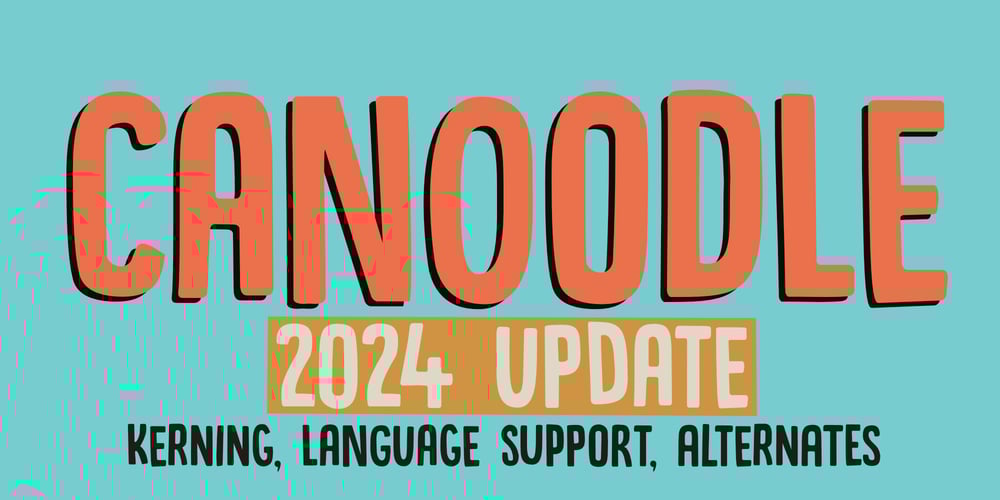
Canoodle Font Family was designed by David Kerkhoff and published by Hanoded. Canoodle contains 2 styles and family package options. To canoodle means to hug and kiss passionately. I leave the rest to your imagination. Canoodle is also a very adorable font – some would even go as far as calling it kissable. It is an all caps typeface, but upper and lower case differ and love to mix and match. I won’t guarantee a spot of canoodling if you use this font, but who knows, maybe you’ll get lucky. Canoodle speaks many tongues.New! 2024 update comes with better kerning, better language support, additional glyphs and a set of contextual alternates as well!